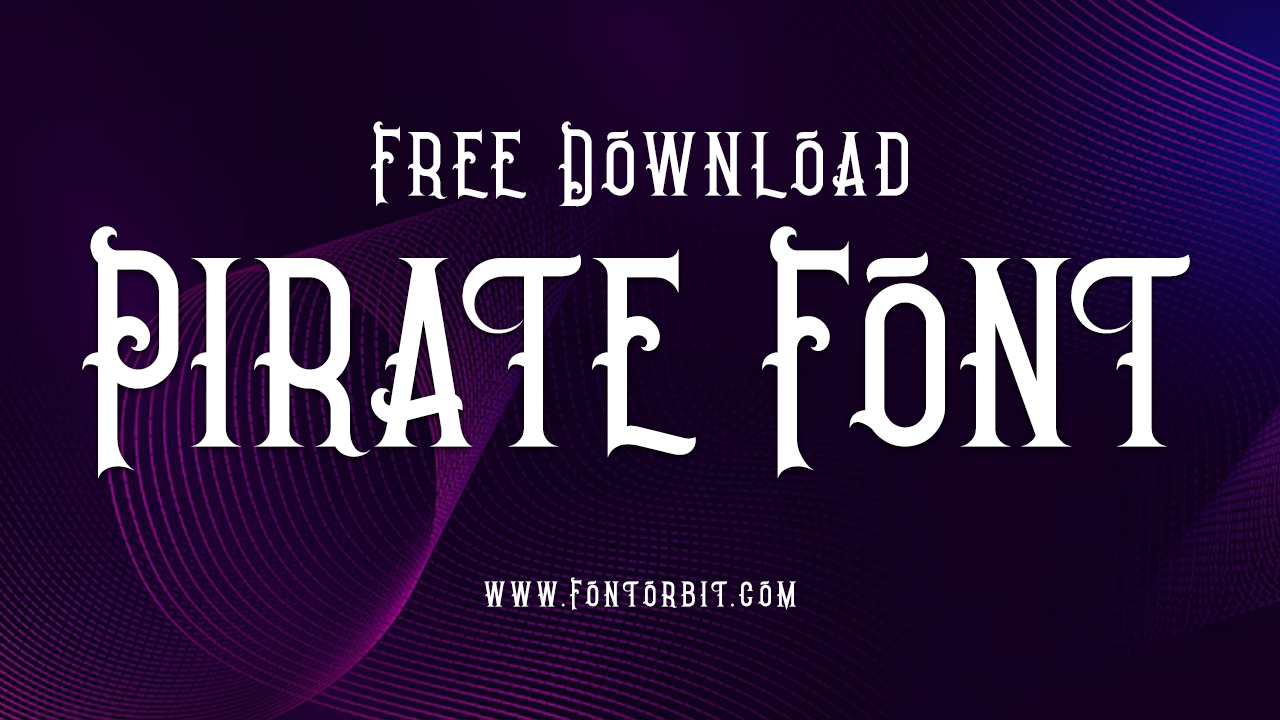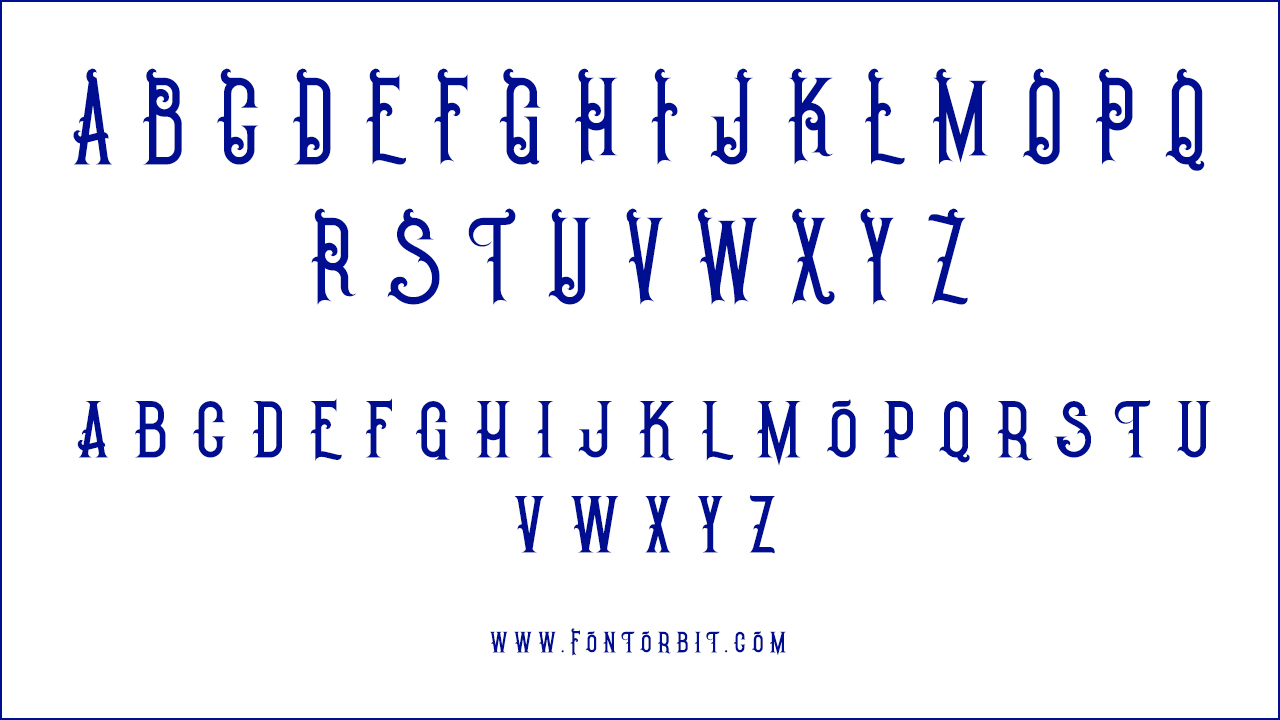
Pirate Font is a bold and adventurous typeface that captures the essence of nautical lore and swashbuckling adventures. Characterized by its sharp, irregular forms and occasionally distorted styles, Pirate Font evokes a sense of mystery and excitement.
The Pirate Font Family Includes
Pirate Font offers a range of styles that reflect its adventurous and mysterious nature. Each variant adds a unique element to designs, whether they’re for thrilling projects or classic pirate themes.
- Skulls and Crossbones
- Kings and Pirates
- Pixel Pirate
- Rapscallion
- PIRATE VIKING
- Wolfpack Halloweed
Pirate Font’s distinctive style makes it an excellent choice for projects that embrace a sense of adventure, mystery, and vintage nautical themes. Its bold presence is perfect for making statements and adding an element of intrigue to various design projects.
- Tattoos
- Editorial Designs
- Event Posters
- Merchandise
- Website Design
- Packaging Design
- Themed Invitations
Pirate Font is frequently used in contexts that aim to evoke a sense of adventure and historical charm. Its irregular and often distorted style makes it popular in designs that seek to capture the essence of classic pirate lore and nautical mystique.
Pirate Font’s sharp, irregular design embodies the adventurous and mysterious spirit of pirate lore. While it may not replicate any specific historical typeface, it effectively captures the essence of swashbuckling tales and vintage nautical themes. Pair Pirate Font with clean, modern fonts or nautical elements to create a dynamic and engaging composition.
1.Is Pirate Font Suitable For All Types Of Design Projects?
Pirate Font is best suited for projects that embrace adventurous or vintage nautical themes. Its bold and irregular style makes it ideal for headings and thematic designs but less suitable for formal or everyday text.
2.What Makes Pirate Font Different From Other Decorative Fonts?
Pirate Font stands out with its irregular and sometimes distorted style that evokes a sense of adventure and mystery. Unlike other decorative fonts, it combines a vintage nautical aesthetic with a unique flair.
3.What Are The Popular Uses Of Pirate Font?
Pirate Font is popular for pirate-themed designs, event posters, tattoos, editorial layouts, and merchandise that seeks to capture the spirit of adventure and classic nautical lore.
4.What Is A Good Pirate Font?
A good pirate font features sharp, irregular forms with a vintage nautical style, like Skulls and Crossbones Font, which evokes adventure and mystery with its distinctive, bold design.
5.What Are The Differences Between Pirate Font And Other Decorative Fonts?
Pirate fonts use sharp, irregular styles and nautical themes, creating a sense of adventure, while other decorative fonts may have varied aesthetics and purposes, such as elegant, playful, or formal designs.